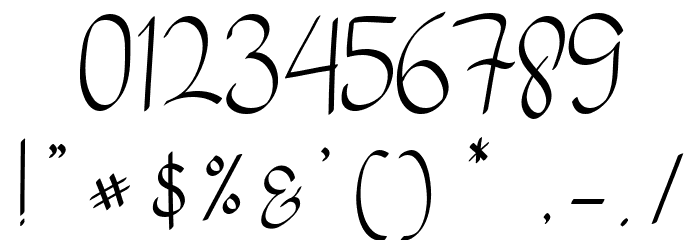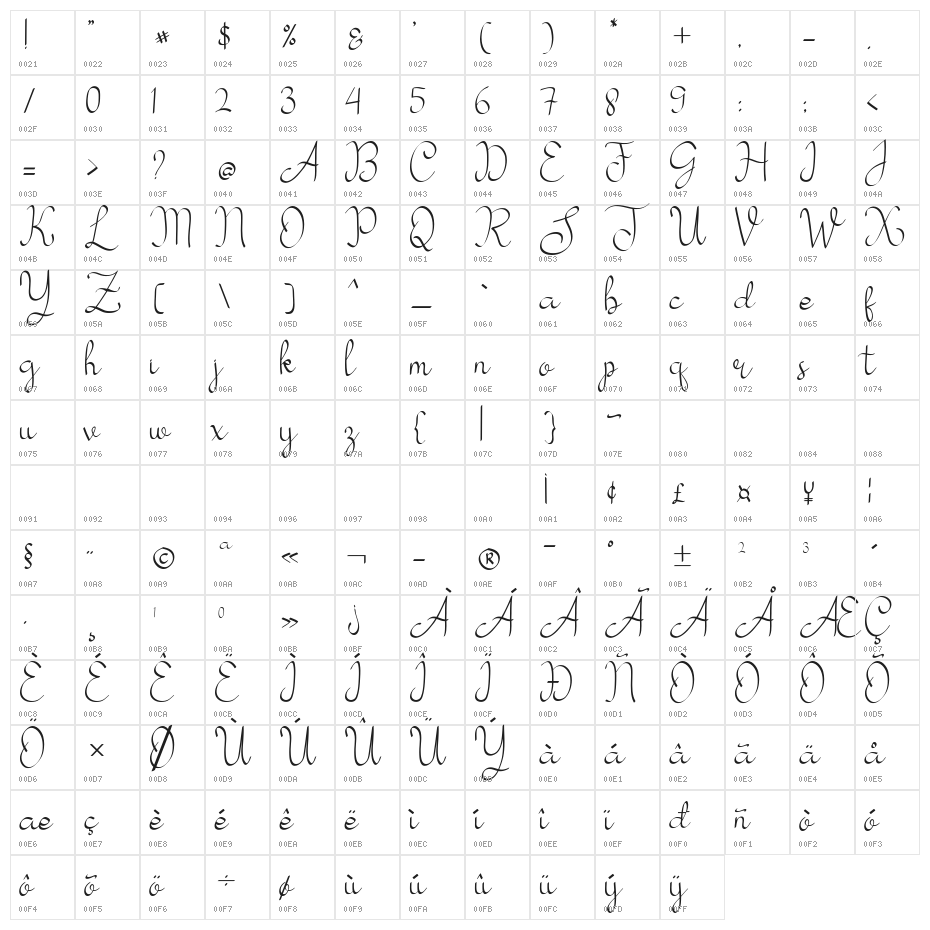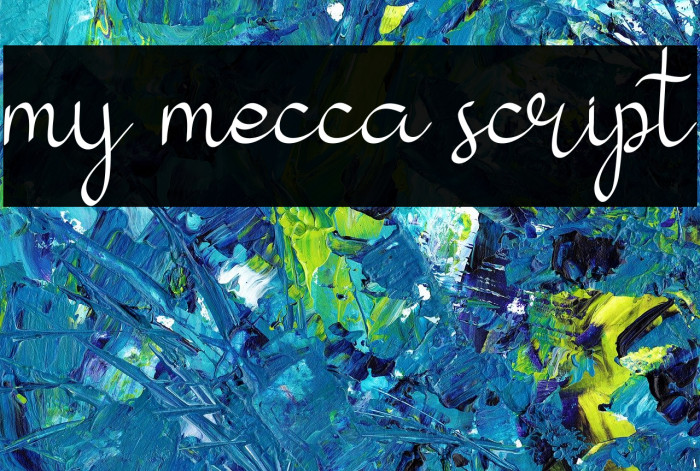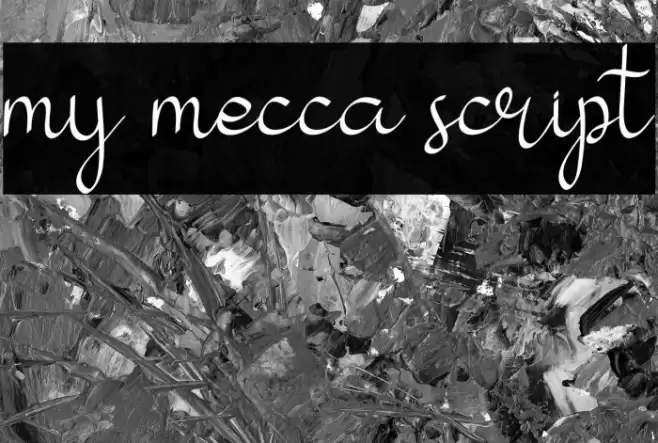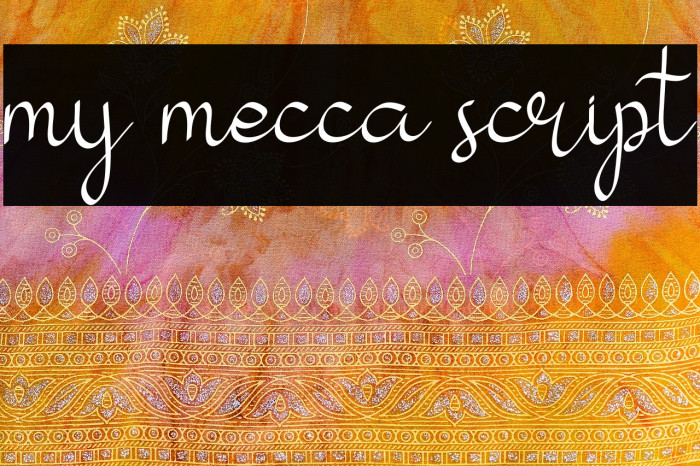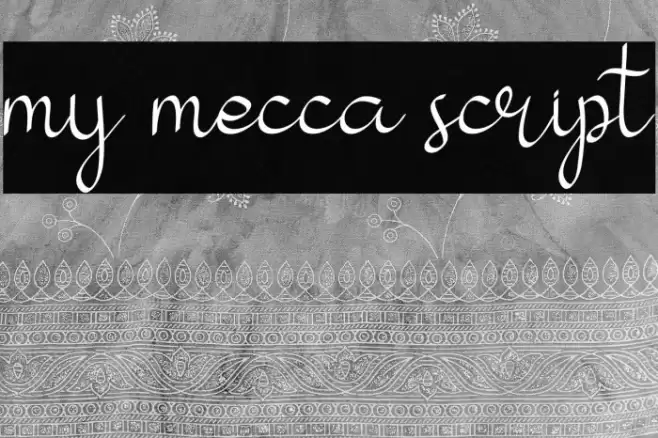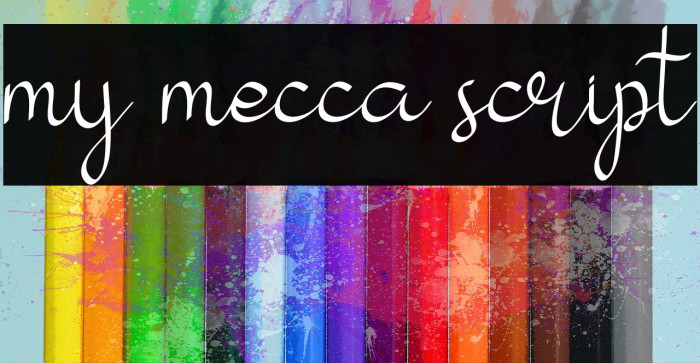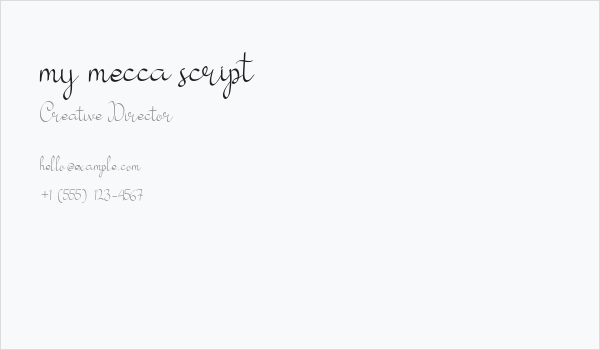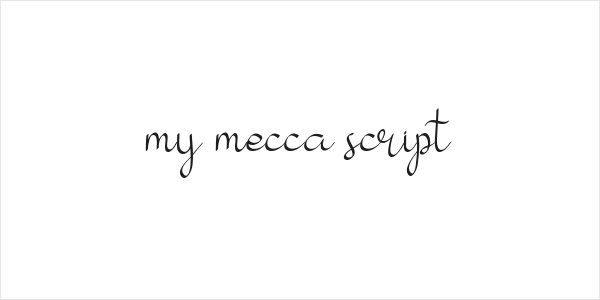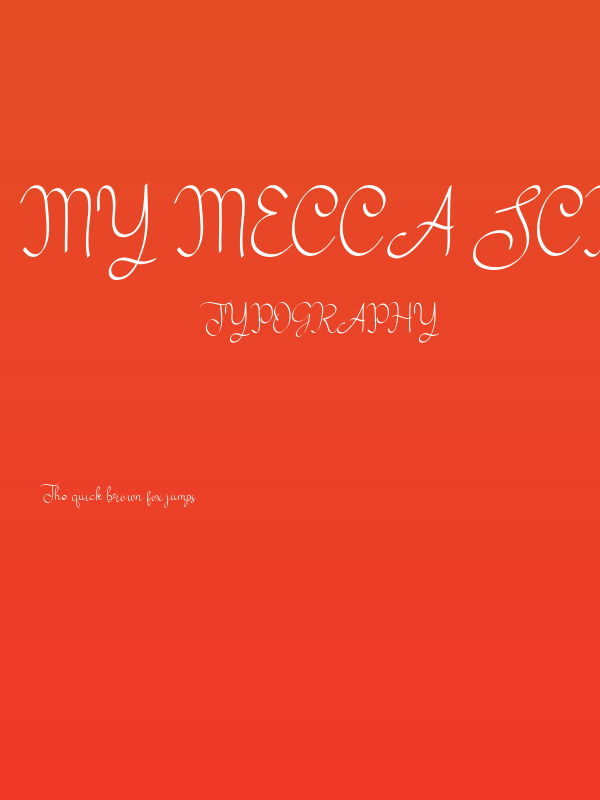
my mecca script Font
my mecca script Description
This script font exudes elegance and fluidity, characterized by its flowing and interconnected letterforms. The uppercase letters display a graceful, looping style, while the lowercase letters maintain a consistent, cursive flow. The numerals are distinct yet harmonize well with the overall script style. Special characters are thoughtfully designed to complement the alphabet, enhancing the font's versatility. The strokes are smooth and consistent, with a medium contrast that adds to its readability and aesthetic appeal. This font is ideal for projects that require a touch of sophistication and personal flair.
| Proposed Projects | Wedding invitations, greeting cards, branding materials, and elegant packaging. |